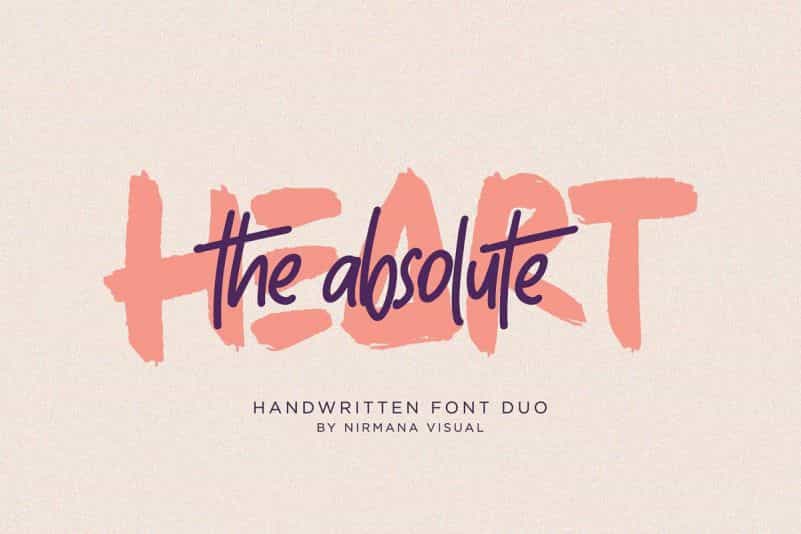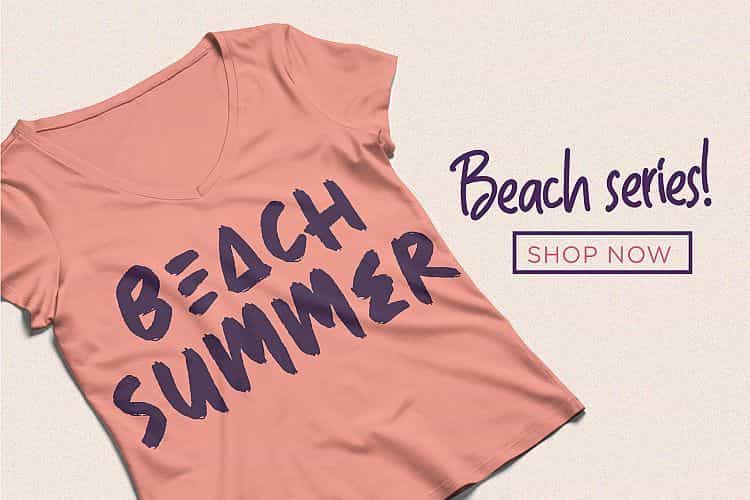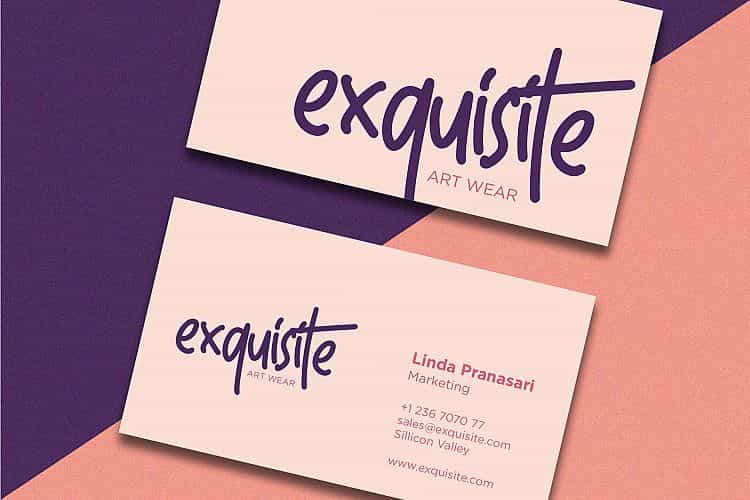
Discover The Absolute Font Duo, part of the Commercial Brush Handwritten collection—a versatile and unique font perfect for adding a personal touch to your projects. Download it for free and enjoy crafting designs with style, from invitations to social media posts. This font is available exclusively for personal use, giving you the freedom to create without limits. Unlock your creativity with The Absolute Font Duo today!
The Absolute is a beautiful handwritten font duo that has been meticulously crafted by one of the most talented calligraphers named Alice. It is ideal for branding, logo, packaging and so on.